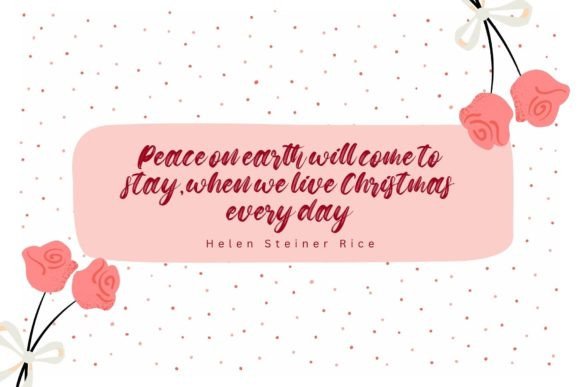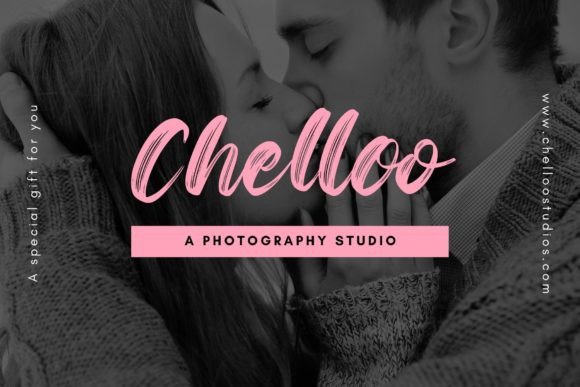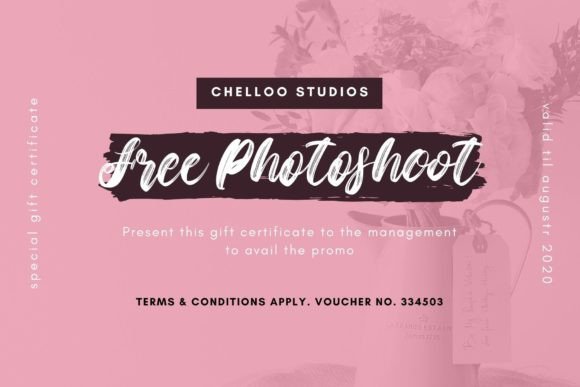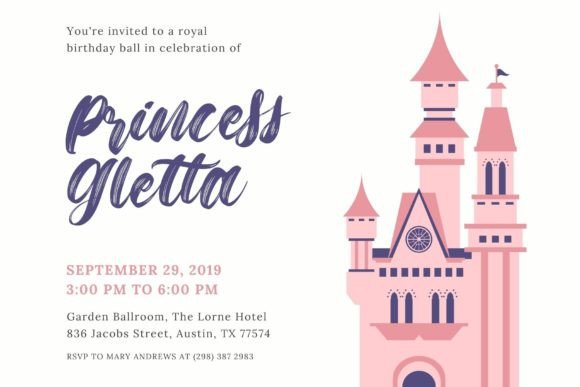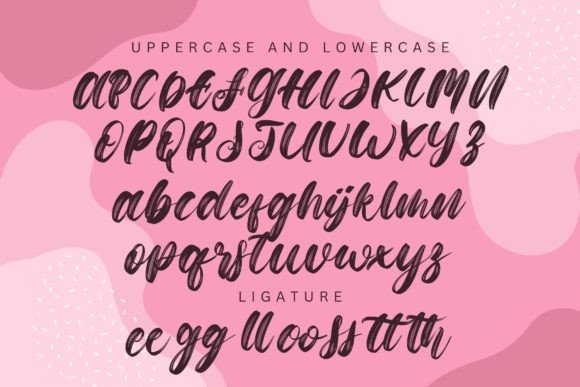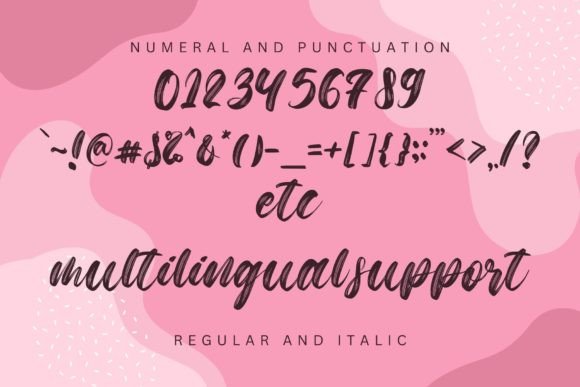
Introducing Gloria Santa Font: A Whimsical Script Font for Festive Designs
Are you looking for a font that can add a touch of magic to your Christmas and New Year designs? Look no further than Gloria Santa Font, a cute, unique, and friendly script font that’s perfect for creating enchanting designs. With its modern yet whimsical style, Gloria Santa Font is sure to transport your designs to a magical world that will captivate your audience.
What Makes Gloria Santa Font Special?
Gloria Santa Font is a one-of-a-kind script font that’s specifically designed to bring a sense of wonder and excitement to your designs. Its unique and friendly style makes it perfect for a wide range of applications, from Christmas and New Year designs to other festive and celebratory projects. Whether you’re a designer, crafter, or DIY enthusiast, Gloria Santa Font is an excellent choice for adding a personal touch to your creations.
Key Features of Gloria Santa Font
- Modern yet Whimsical Style: Gloria Santa Font boasts a modern yet whimsical style that’s perfect for creating designs that are both trendy and playful.
- Cute and Unique: This font is designed to be cute and unique, making it perfect for designs that require a touch of personality.
- Friendliness: Gloria Santa Font has a friendly tone that’s sure to make your designs feel approachable and inviting.
- Script Font: As a script font, Gloria Santa Font is perfect for adding a touch of elegance and sophistication to your designs.
Perfect for Christmas and New Year Designs
Gloria Santa Font is specifically designed with Christmas and New Year designs in mind. Its festive and celebratory style makes it perfect for creating:
- Christmas cards and invitations
- New Year party decorations and flyers
- Festive social media graphics and posts
- Holiday-themed crafts and DIY projects
Why Choose Gloria Santa Font?
There are many fonts to choose from, but Gloria Santa Font stands out from the rest due to its:
- Uniqueness: Gloria Santa Font is a one-of-a-kind font that’s sure to make your designs stand out.
- Versatility: This font can be used for a wide range of applications, from digital designs to print projects.
Tips for Using Gloria Santa Font
To get the most out of Gloria Santa Font, here are some tips to keep in mind:
- Use it for Headlines and Titles: Gloria Santa Font is perfect for headlines and titles, where its whimsical style can really shine.
- Pair it with Other Fonts: Experiment with pairing Gloria Santa Font with other fonts to create a unique and interesting design.
- Experiment with Colors: Don’t be afraid to try out different colors and textures to add depth and interest to your designs.
Gloria Santa Font is a unique and friendly script font that’s perfect for creating magical and enchanting designs. With its modern yet whimsical style, this font is sure to transport your designs to a magical world that will captivate your audience. Whether you’re a designer, crafter, or DIY enthusiast, Gloria Santa Font is an excellent choice for adding a personal touch to your Christmas and New Year designs.